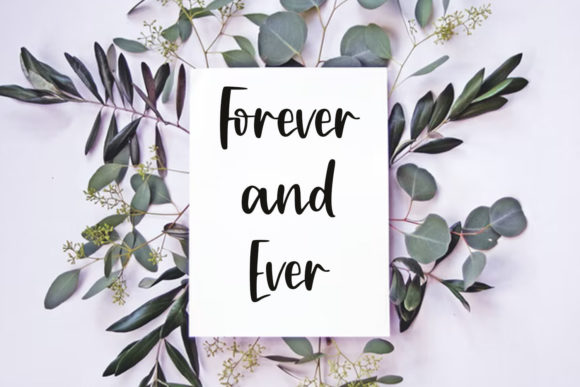
Forever Love Font
About Forever Love Font
Forever Love is a beautiful and refined script font. It has a classy, elegant and modern look that can be used for logos, branding, invitations, stationery, wedding designs, social media posts, and much more!